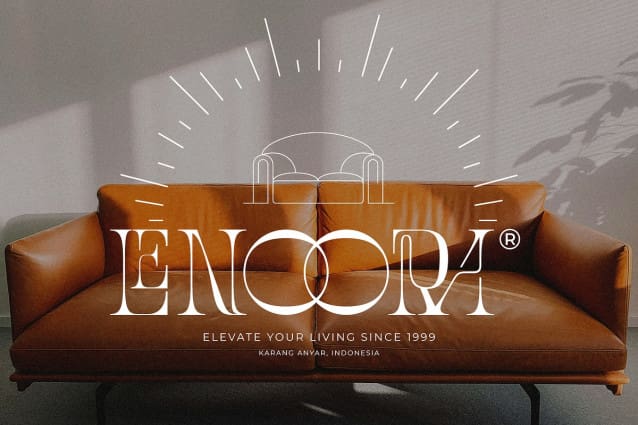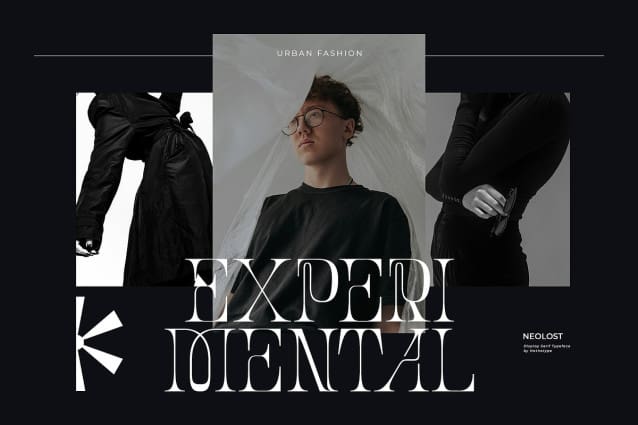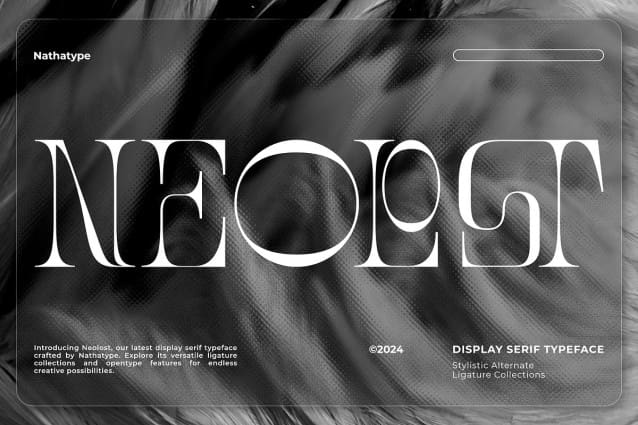
Neolost Font
Neolost Font is a striking serif display font that commands attention with its bold design and unconventional style. Crafted in uppercases, this font exudes a sense of drama and intrigue. With its very thin weight and pronounced contrast between thick and thin strokes, Neolost captivates the eye and adds a sense of dynamism to your text.
Each letter is meticulously designed with an uneven outline, giving the font a distinctive and edgy appearance that sets it apart from traditional serif fonts. Despite its unconventional styling, Neolost Font retains a sense of elegance and sophistication.